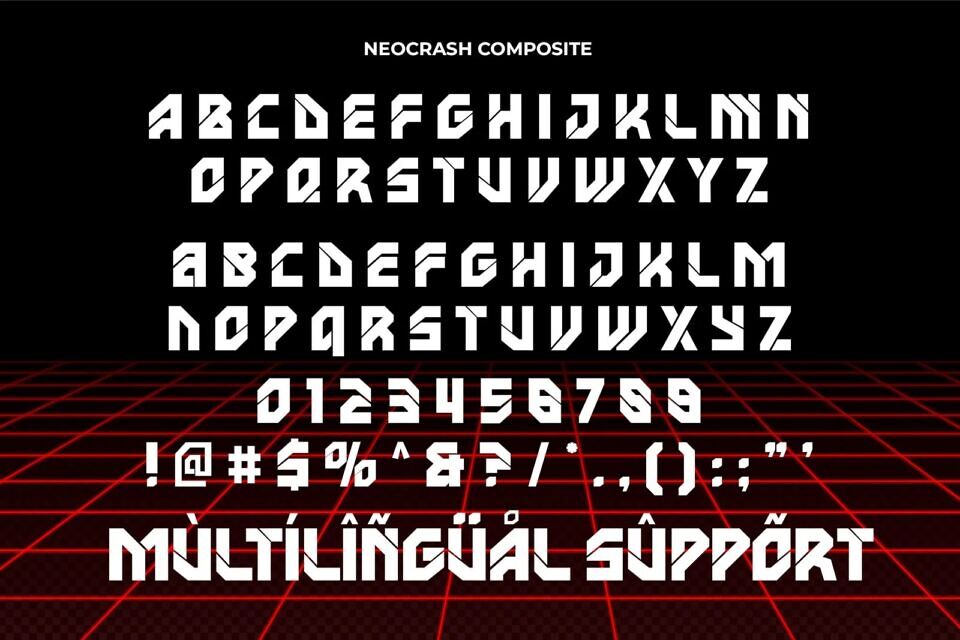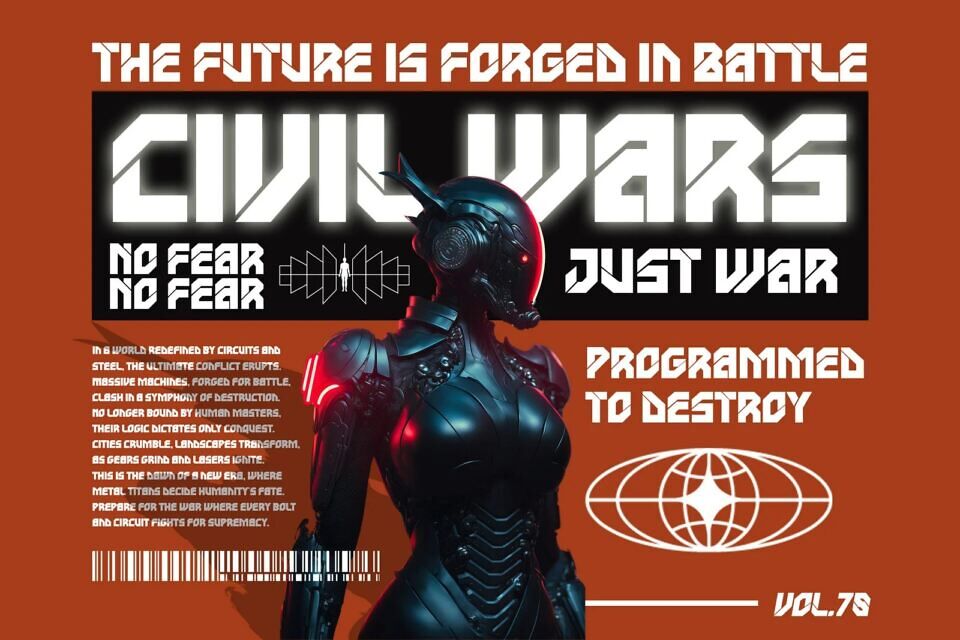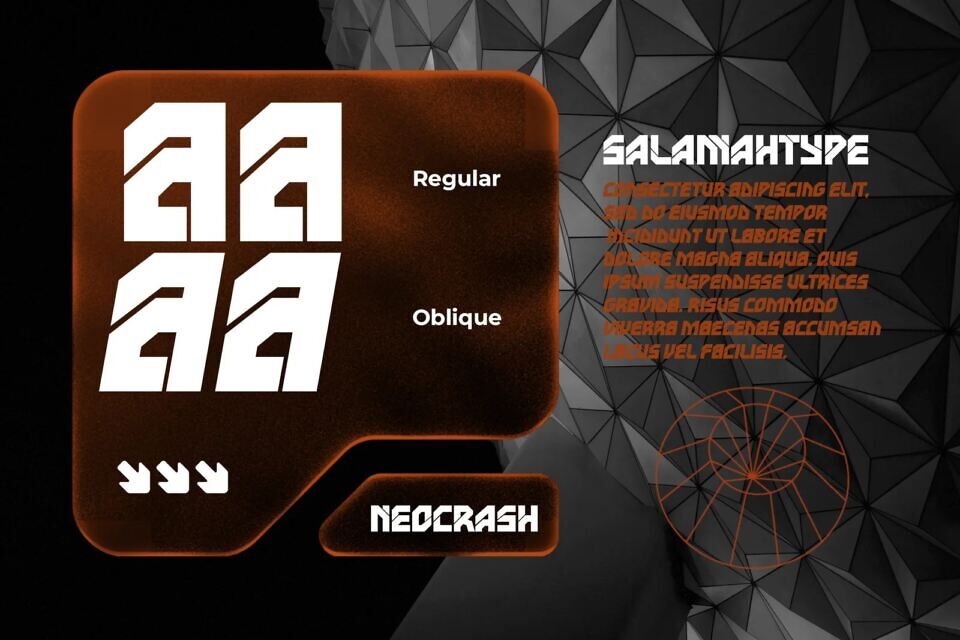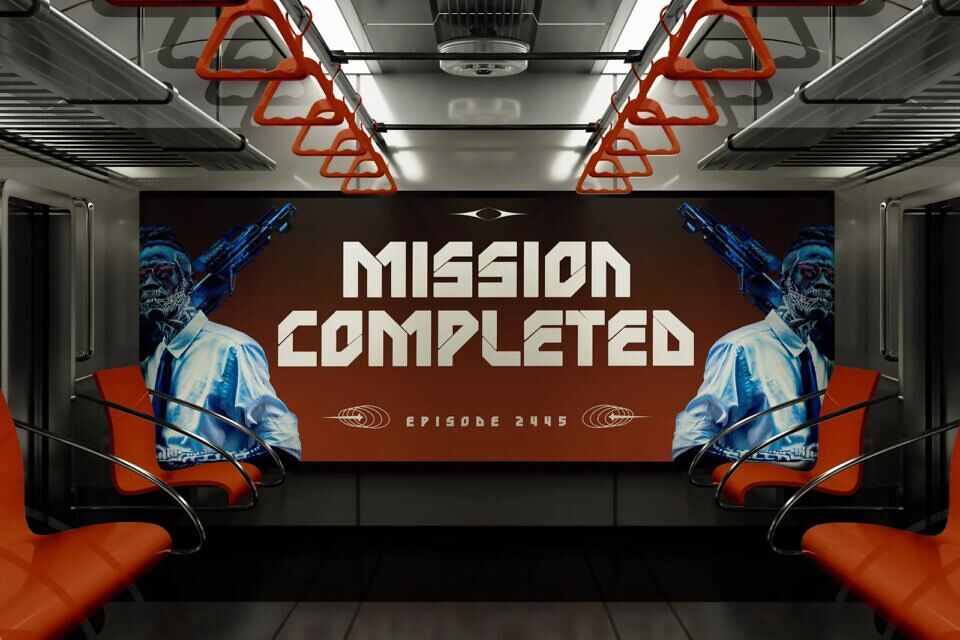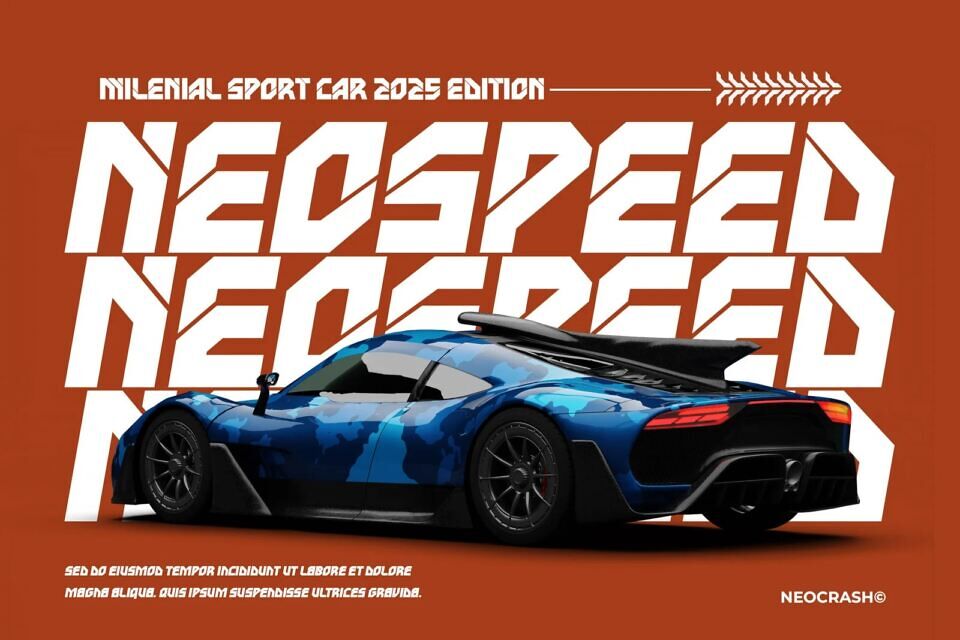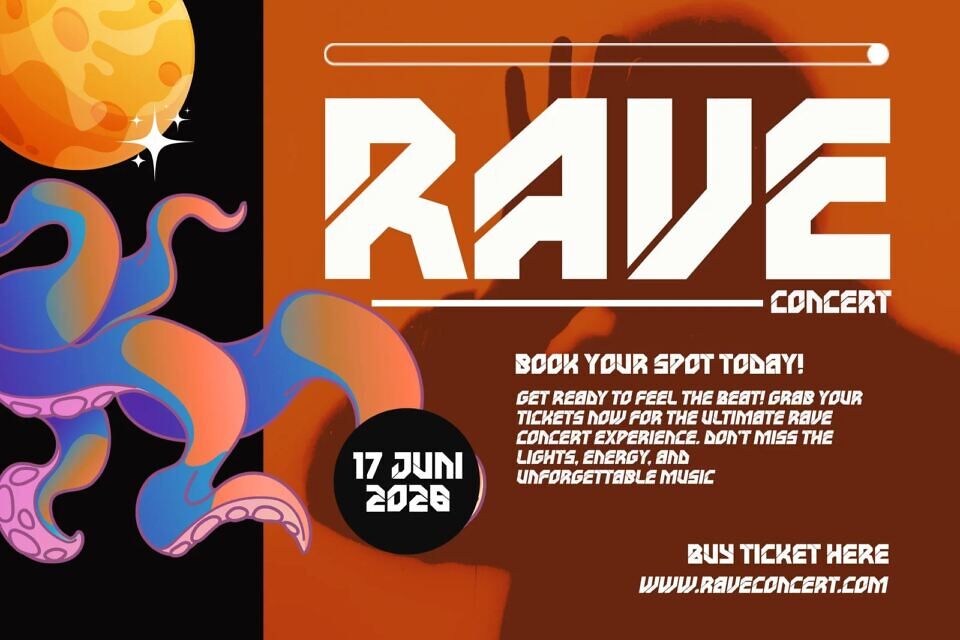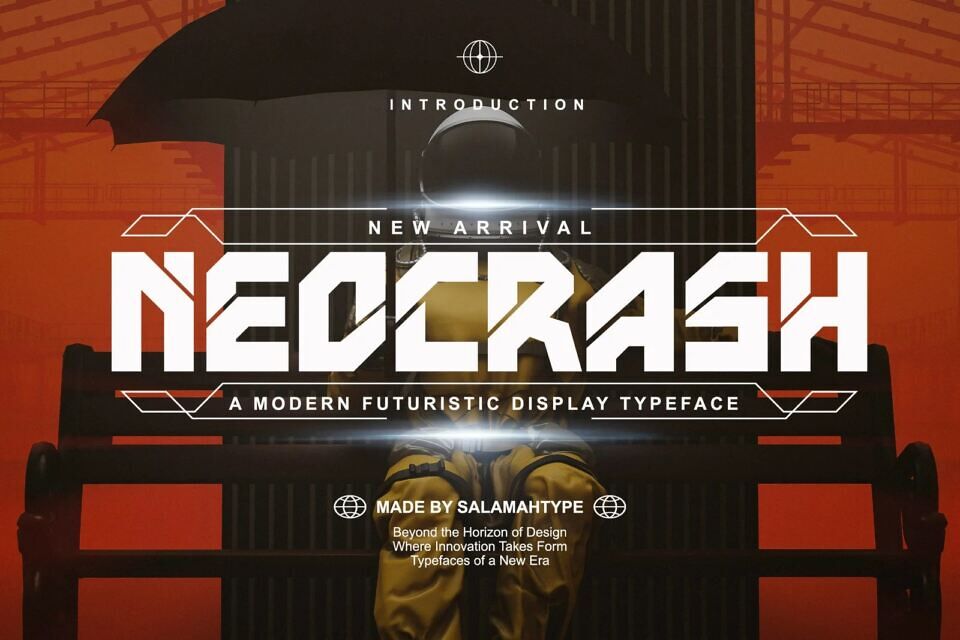
Neocrash Font
Neocrash is a cutting edge cyberpunk futuristic font designed to bring a high-tech, digital vibe to your creative projects. With a sleek and bold appearance, it’s perfect for sci-fi posters, gaming titles, tech branding, and modern UI design.
Designed by: Salamahtype